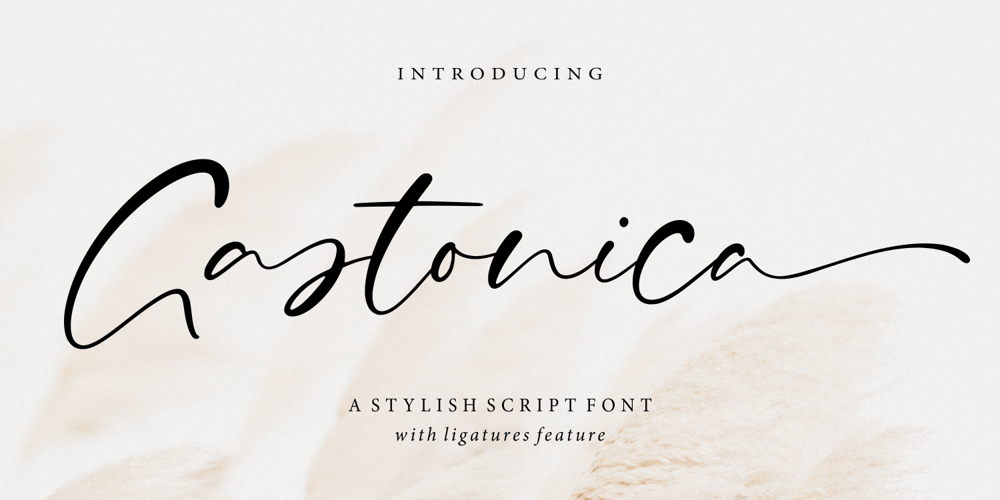
Gastonica Font Family was designed by Andre Bima Falah Rabbani and published by Atharuah Studios. Gastonica contains 1 styles and family package options. Introducing Gastonica; A stylish script font! Gastonica is a stylish handwritten script font designed with love and completely hand-drawn. Every letter created, shows a flow that looks elegant and stunning.Gastonica also has several ligatures to add an organic feel to every word that is displayed. It’s the perfect choice for stylish branding & logo projects, product packaging, handwritten quotes, editorial design, and more.What’s Included:Gastonica comes with a single font file that includes uppercase, lowercase, numbers, punctuation, and multilingual support.That’s it! I hope you enjoy it.You can also say hello to me on Instagram: https://www.instagram.com/atharuah_Thank You!